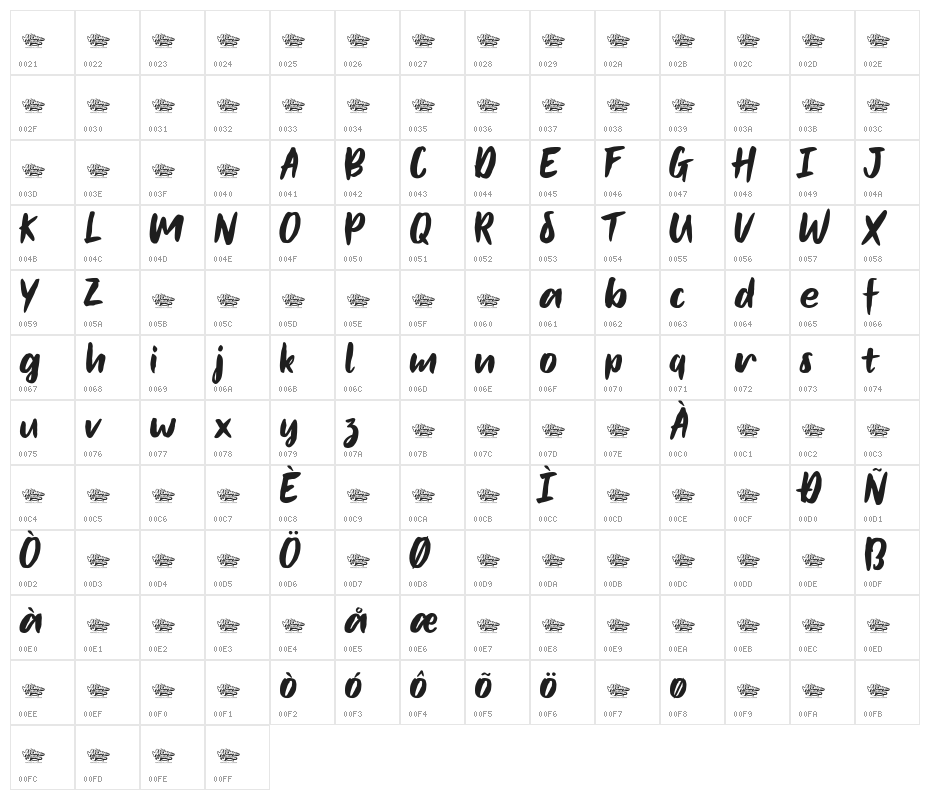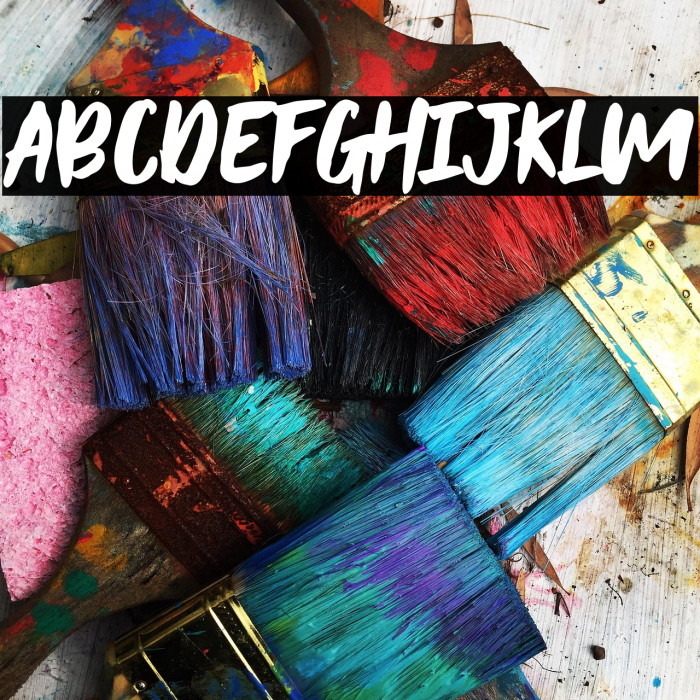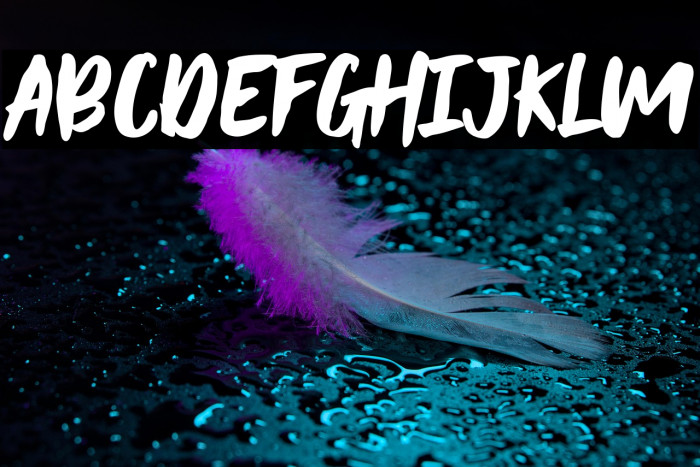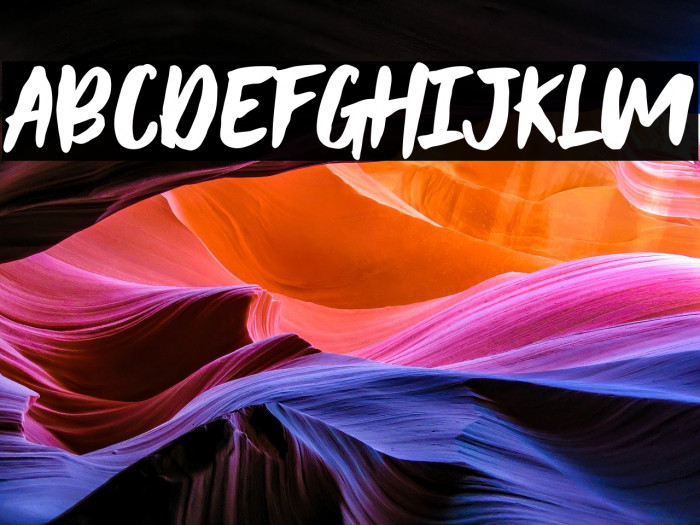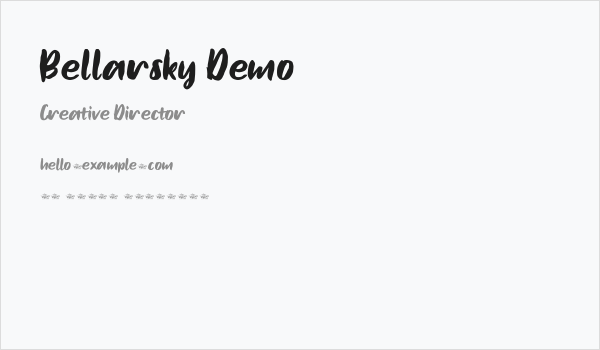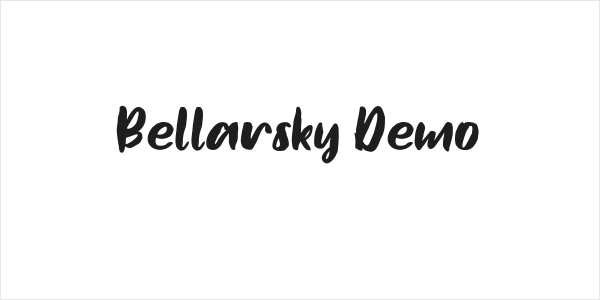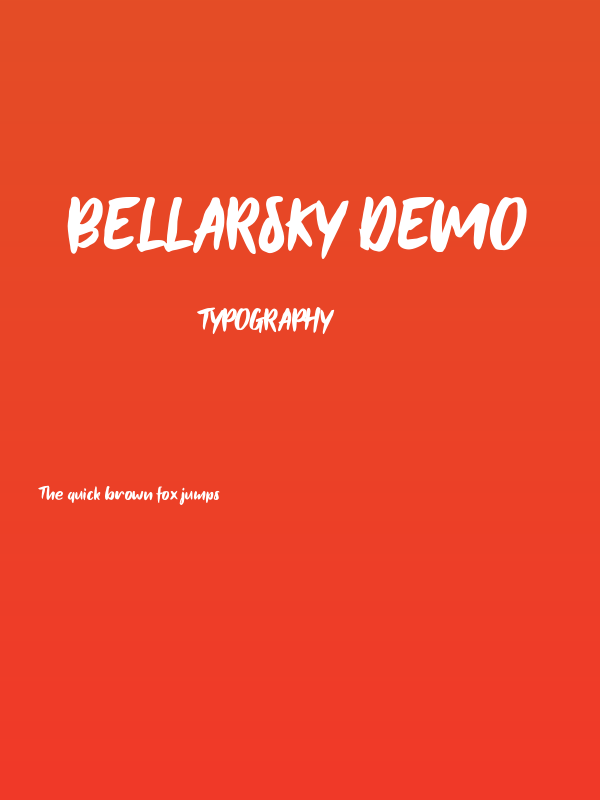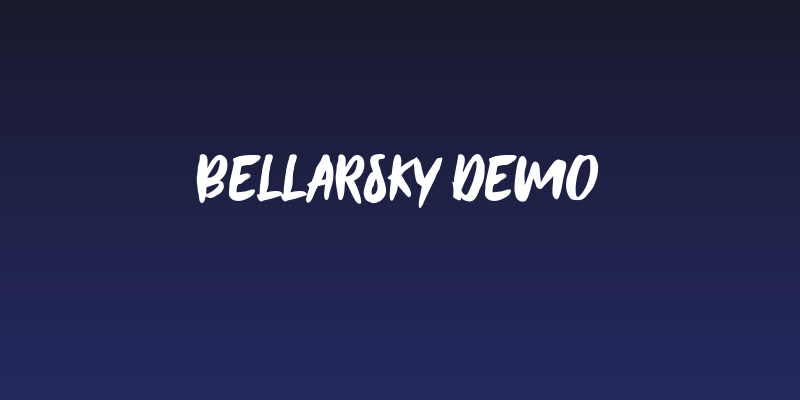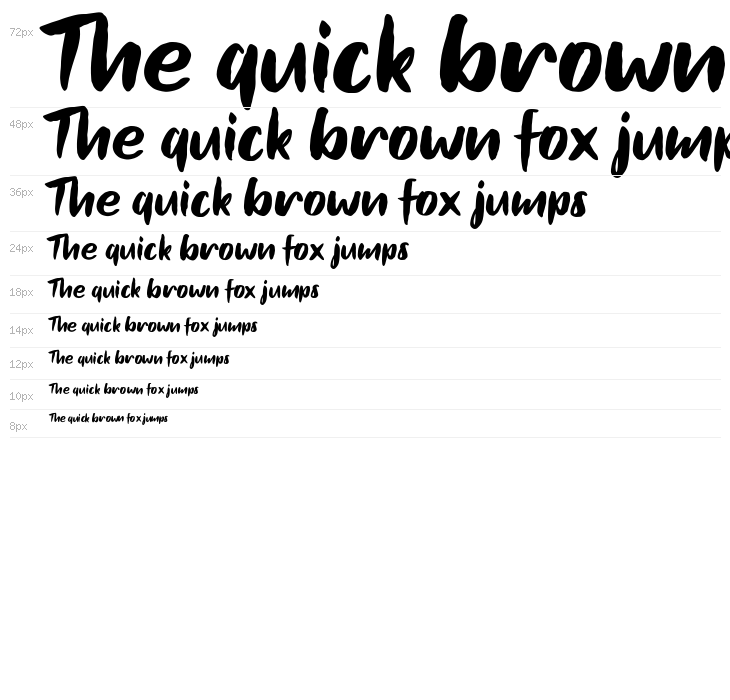
Bellarsky Demo Font
Bellarsky Demo Description
This font features a bold and expressive handwritten style, characterized by its fluid and dynamic strokes. The letters are crafted with a sense of motion, giving them a lively and energetic appearance. The uppercase and lowercase letters maintain a consistent style, with rounded edges and a slightly irregular baseline that enhances the handwritten feel. The font's bold weight and high contrast between thick and thin strokes make it stand out, while the wide character spacing ensures readability. This font is perfect for projects that require a personal and artistic touch.
| Proposed Projects | Ideal for branding, logos, posters, and social media graphics that need a personal and artistic flair. |